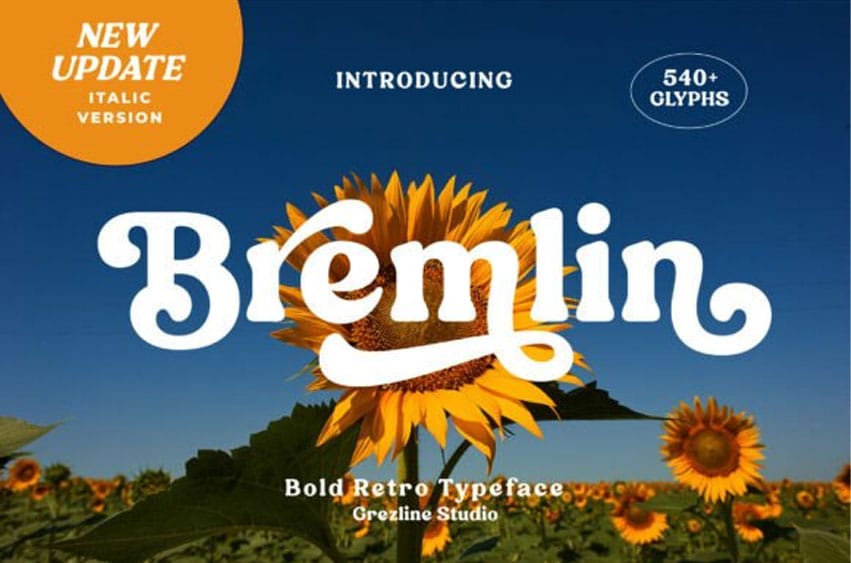
Bremlin Italic Font just got even better. I’m excited to introduce the brand-new Italic Version of Bremlin, one of my best-selling retro typefaces.
Designed to complement the original style, this new addition brings more flexibility, personality, and creative possibilities to your typography. Whether you’re working on branding, packaging, logos, posters, or social media content, Bremlin Italic helps you create more dynamic and expressive designs.
Now updated with an Italic Version and 540+ glyphs.